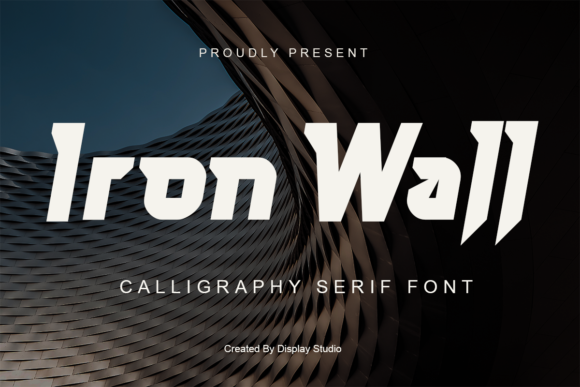
In a world drowning in monotony, Iron Wall Font emerges as a beacon of boldness and distinction, a serif font engineered to command attention and leave an indelible mark. Its sharp edges and unwavering lines exude an aura of confidence and strength, making it the perfect choice for those seeking to make a statement. Unleash your creativity with Iron Wall Font and witness the transformation of your designs into captivating masterpieces.
Picture the impact of your T-shirt designs adorned with Iron Wall Font's captivating strokes, each letter a testament to your unique style and unwavering attitude. Let your message reverberate through the fabric, captivating the eyes of all who behold it. With Iron Wall Font as your ally, you hold the power to create designs that ignite conversations, spark emotions, and leave a lasting impression.
Imagine your posters and flyers exploding with life, their messages amplified by Iron Wall Font's commanding presence. Its bold structure and unwavering lines will demand attention, drawing in your audience and delivering your message with unparalleled impact. Witness the transformation of ordinary words into captivating headlines, where each letter carries the weight of your intent and leaves an imprint on the minds of your readers.
Unleash the endless possibilities of Iron Wall Font and watch as your designs transcend the ordinary, captivating hearts and minds. Its unwavering boldness will empower you to create designs that break free from the mundane, captivating attention and leaving an indelible mark on your audience. Embrace the power of Iron Wall Font and let your creativity flourish.